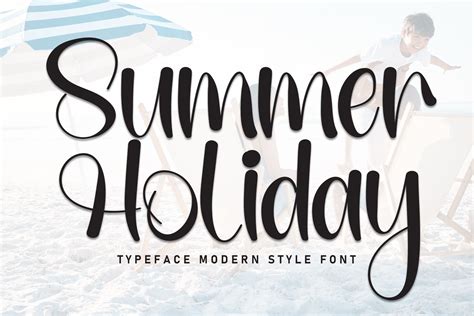
As the sun climbs higher and the days grow longer, the aesthetic shift toward warmth, relaxation, and vacation vibes becomes undeniable. Whether you are a graphic designer creating promotional materials for travel agencies, a social media manager crafting seasonal content, or a small business owner looking to spruce up your storefront, the right typography can set the mood instantly. Choosing the perfect Summer Holiday Font is more than just an aesthetic decision; it is about capturing the essence of freedom, warmth, and adventure in a way that resonates with your audience. In this guide, we will explore why typography matters during the hottest months of the year and how you can select the best options for your creative projects.
Understanding the Psychology of Summer Typography
Typography communicates emotions long before the reader processes the actual words. During the summer months, audiences are looking for escapism, lightheartedness, and energy. A stiff, formal font might feel out of place on a beach-themed flyer or a travel blog post. Instead, designers lean toward typefaces that evoke feelings of sand, waves, sunshine, and chilled beverages.
When selecting a Summer Holiday Font, consider the following emotional triggers:
- Playfulness: Often achieved through hand-lettered or script styles that feel spontaneous.
- Warmth: Rounded edges and soft curves help a design feel welcoming and friendly.
- Adventure: Bold, sans-serif fonts that look like vintage travel posters or signage from tropical destinations.
- Relaxation: Clean, minimalist fonts that prioritize white space and airy layouts.
By aligning your font choice with the intended emotional response, you ensure that your design feels cohesive and authentic to the season.
Top Categories of Summer Holiday Fonts
To help you narrow down your search, it is helpful to categorize fonts based on their visual characteristics. Not every "summer" project requires a beach-party vibe; some might need a sophisticated, sunset-dinner aesthetic. Here is a breakdown of the styles that dominate the season:
1. Retro Surf and Tropical Scripts
These fonts are characterized by flowing, organic lines that mimic the movement of ocean waves. They are perfect for cocktail menus, summer sale social media posts, and lifestyle photography overlays. These scripts usually feel personal, as if they were written in a vacation postcard.
2. Bold, Sun-Drenched Sans-Serifs
Think of the typography found on vintage luggage labels or 1960s seaside resort posters. These fonts are usually thick, impactful, and highly readable. They work exceptionally well for bold headlines that need to grab attention immediately.
3. Geometric Minimalist Fonts
If your summer aesthetic is more “Mediterranean villa” or “luxury island getaway,” you want something clean and sophisticated. Geometric fonts with wide letter spacing evoke a sense of open air and high-end relaxation.
Comparing Summer Font Styles for Your Project
Deciding which style fits your specific needs can be difficult. The table below outlines how different font categories perform across various design platforms.
| Font Style | Best Use Case | Primary Mood |
|---|---|---|
| Handwritten Scripts | Social Media, Personal Blogs | Friendly, Informal |
| Retro Sans-Serif | Posters, Event Flyers | Energetic, Nostalgic |
| Modern Geometric | Web Design, Luxury Branding | Sophisticated, Airy |
| Distressed/Textured | Apparel, Beachwear | Rugged, Casual |
💡 Note: When using a highly stylized Summer Holiday Font for your headers, always ensure that your body text remains a standard, highly legible serif or sans-serif font to maintain readability across all screen sizes.
Best Practices for Using Seasonal Fonts
Using a Summer Holiday Font effectively requires a balance between seasonal flair and functional design. Just because a font is beautiful does not mean it is suitable for every application. Here are a few expert tips to keep your designs looking professional:
- Limit Your Font Count: Do not use more than two distinct decorative fonts in a single design. Use a bold, seasonal font for the headline and a clean, neutral font for the body copy.
- Mind the Contrast: If your background is a busy summer photo—like a beach sunset or a palm tree forest—ensure your font color has enough contrast to remain readable. A white font with a soft drop shadow is often the best solution.
- Kerning and Spacing: For summer-themed designs, increasing the letter spacing (kerning) often makes the text feel lighter and more breathable, perfectly matching the vibe of a long, lazy afternoon.
- Check for Legibility: Before finalizing your design, zoom out. If the decorative elements of your font make the text illegible at a smaller size, it might not be the right choice for mobile viewing.
💡 Note: Always check the licensing of any font you choose to ensure it is cleared for commercial use if you are working on client-related materials or paid advertisements.
Integrating Seasonal Typography into Digital Media
In the digital age, your Summer Holiday Font choices need to work seamlessly across various formats. Whether you are creating a newsletter, a landing page, or a series of Instagram Stories, consistency is key. For social media, consider how your font looks over moving video or animated GIFs. A font that looks great on a static image might disappear or become difficult to read when placed over dynamic, changing backgrounds.